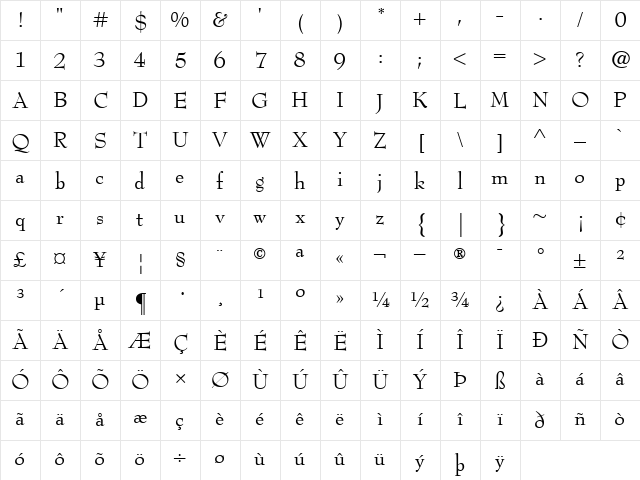
Bernhard Modern Roman Regular
Design Context for Bernhard Modern Roman
Bernhard Modern Roman is a composed and adaptable typeface that performs quietly and consistently across a wide range of design contexts.